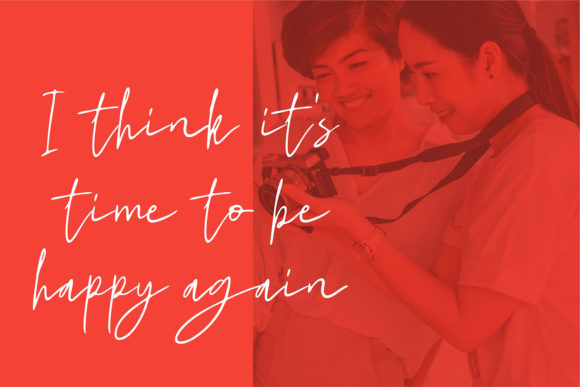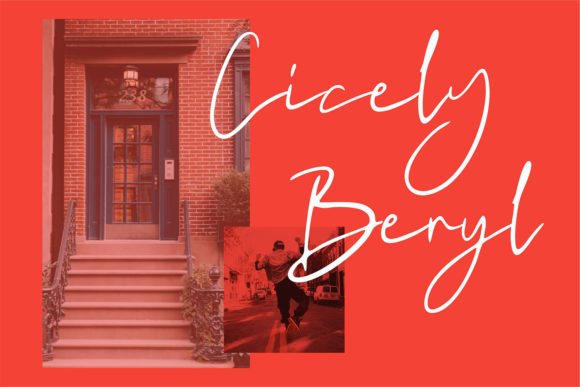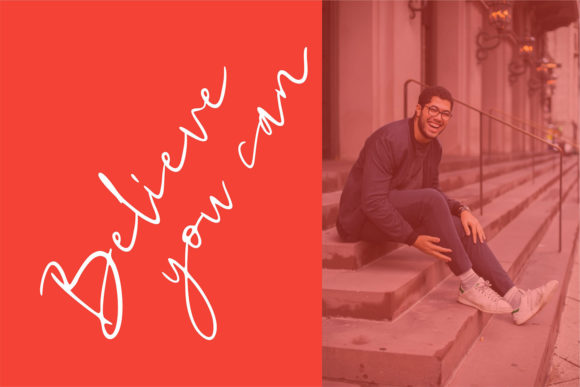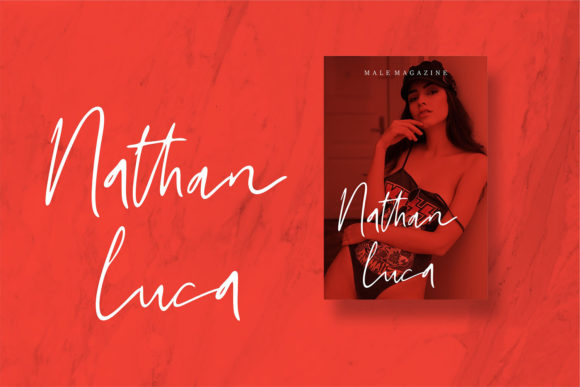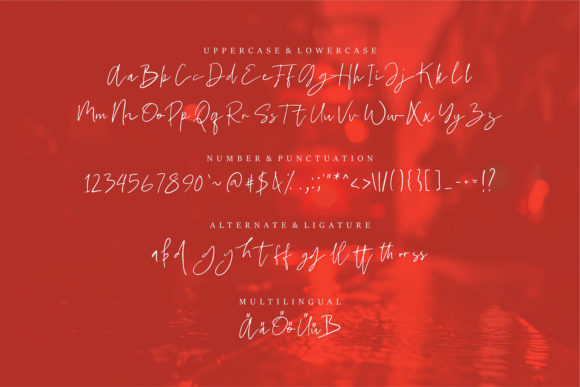
Gately Font: Elevate Your Designs with Elegance and Sophistication
In the world of typography, a font can make or break a design. For designers and crafters looking to add a touch of elegance and sophistication to their projects, the Gately Font is an excellent choice. This beautiful, handwritten font is perfect for creating stunning designs that stand out from the crowd.
What is Gately Font?
Gately Font is an elegant and flowing handwritten font that boasts beautiful, well-balanced characters. Its unique and refined aesthetic makes it an ideal choice for a wide range of design applications, including logos, stationery art, quotes, book covers, magazines, branding, and more.
Key Features of Gately Font
- Elegant and flowing design: Gately Font features a smooth, cursive script that adds a touch of sophistication to any design.
- Well-balanced characters: Each character in the Gately Font is carefully crafted to ensure perfect balance and harmony, making it easy to read and visually appealing.
- Versatile: Gately Font can be used for a wide range of design projects, from logos and branding to stationery art, quotes, and more.
- Unique and refined aesthetic: The Gately Font has a distinct, high-end look that sets it apart from other fonts.
Whether you’re a professional designer or a crafty DIY enthusiast, the Gately Font is an excellent addition to your design toolkit. Its elegant and sophisticated design makes it perfect for:
- Logos and branding: Create a lasting impression with a custom logo that exudes elegance and refinement.
- Stationery art: Add a touch of sophistication to your stationery, including invitations, greeting cards, and more.
- Quotes and typography: Use the Gately Font to create stunning quote designs that inspire and motivate.
- Book covers and magazines: Give your publications a professional, high-end look with the Gately Font.
Why Choose Gately Font?
With so many fonts available, why choose the Gately Font? Here are just a few reasons:
- Unique and distinctive: The Gately Font has a one-of-a-kind design that will set your projects apart from the crowd.
- Elegant and sophisticated: Add a touch of refinement and luxury to your designs with the Gately Font.
- Easy to read and use: The Gately Font is carefully crafted to ensure perfect legibility and ease of use.
Tips for Using Gately Font
To get the most out of the Gately Font, here are a few tips:
- Use it sparingly: The Gately Font is a statement font, so use it sparingly to make a lasting impression.
- Experiment with colors and textures: Add depth and interest to your designs by experimenting with different colors and textures.
- Pair it with other fonts: Combine the Gately Font with other fonts to create a unique and visually appealing design.